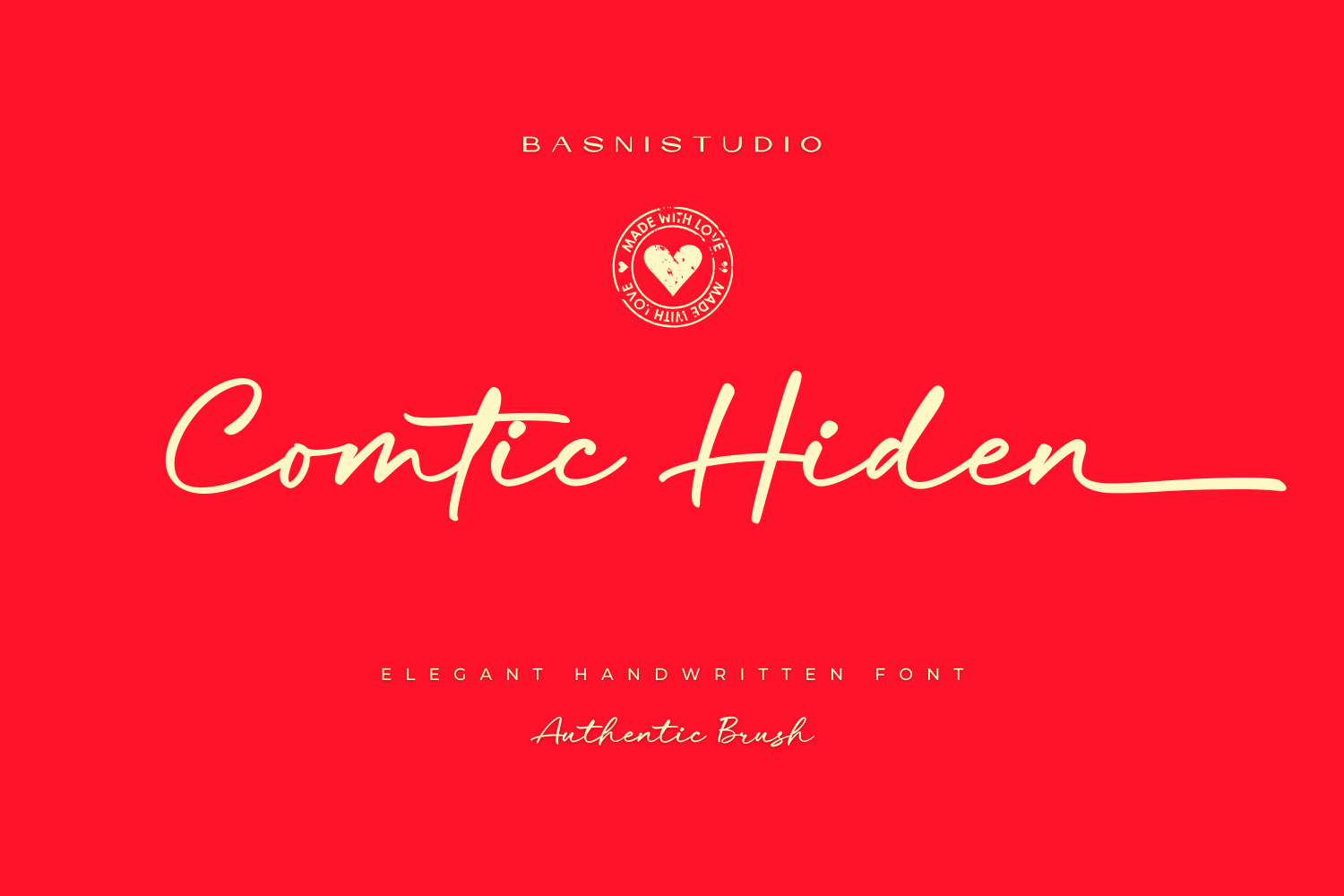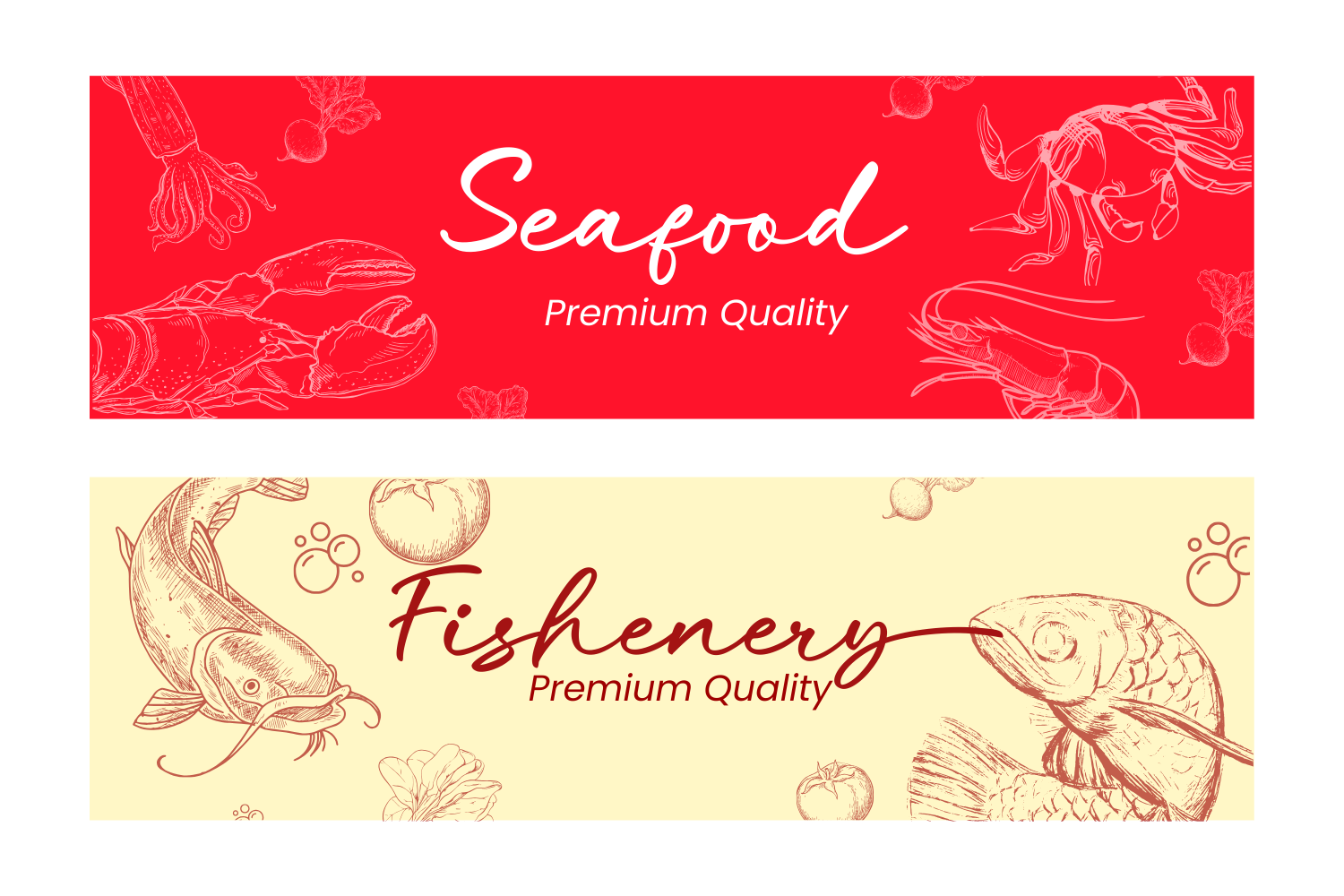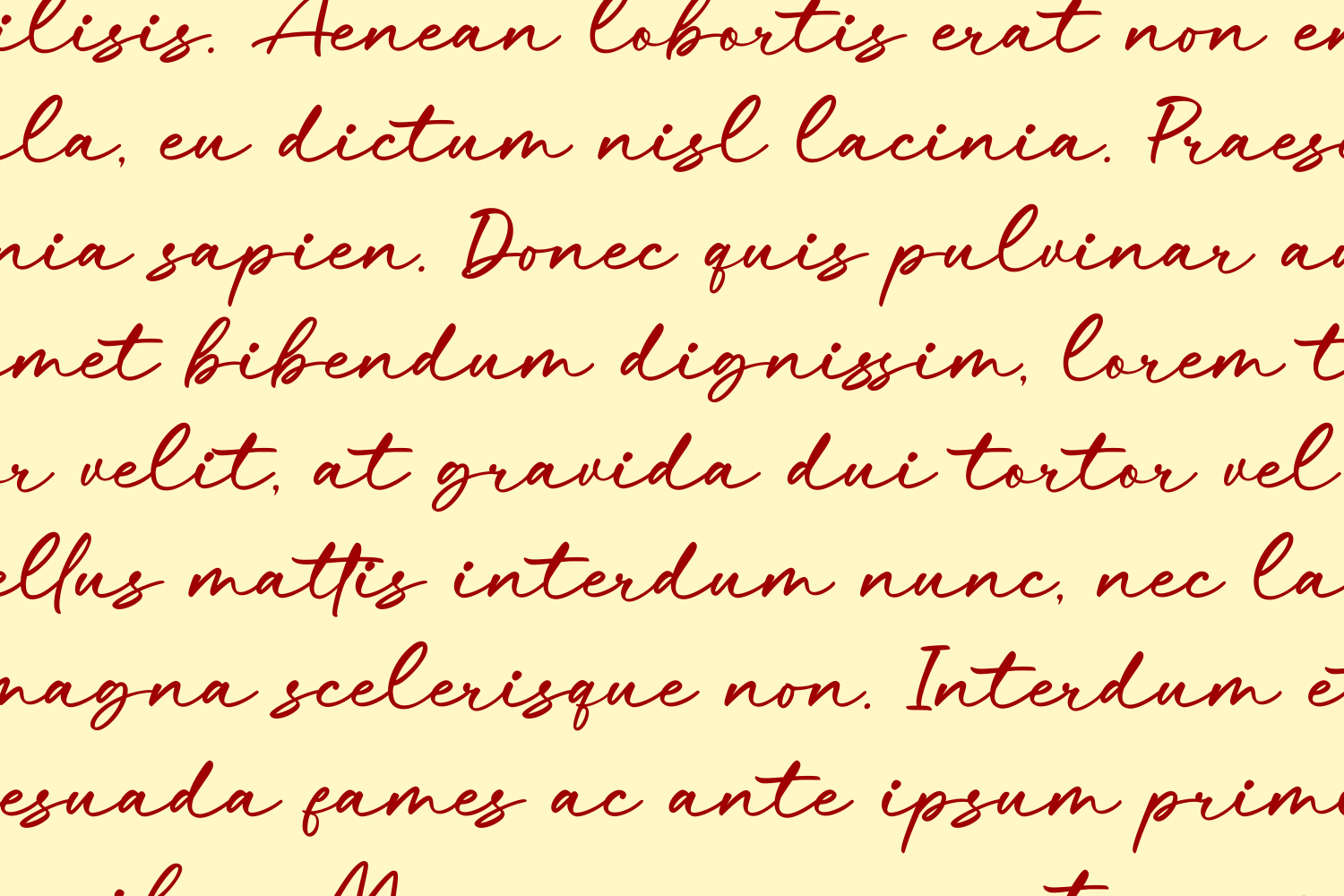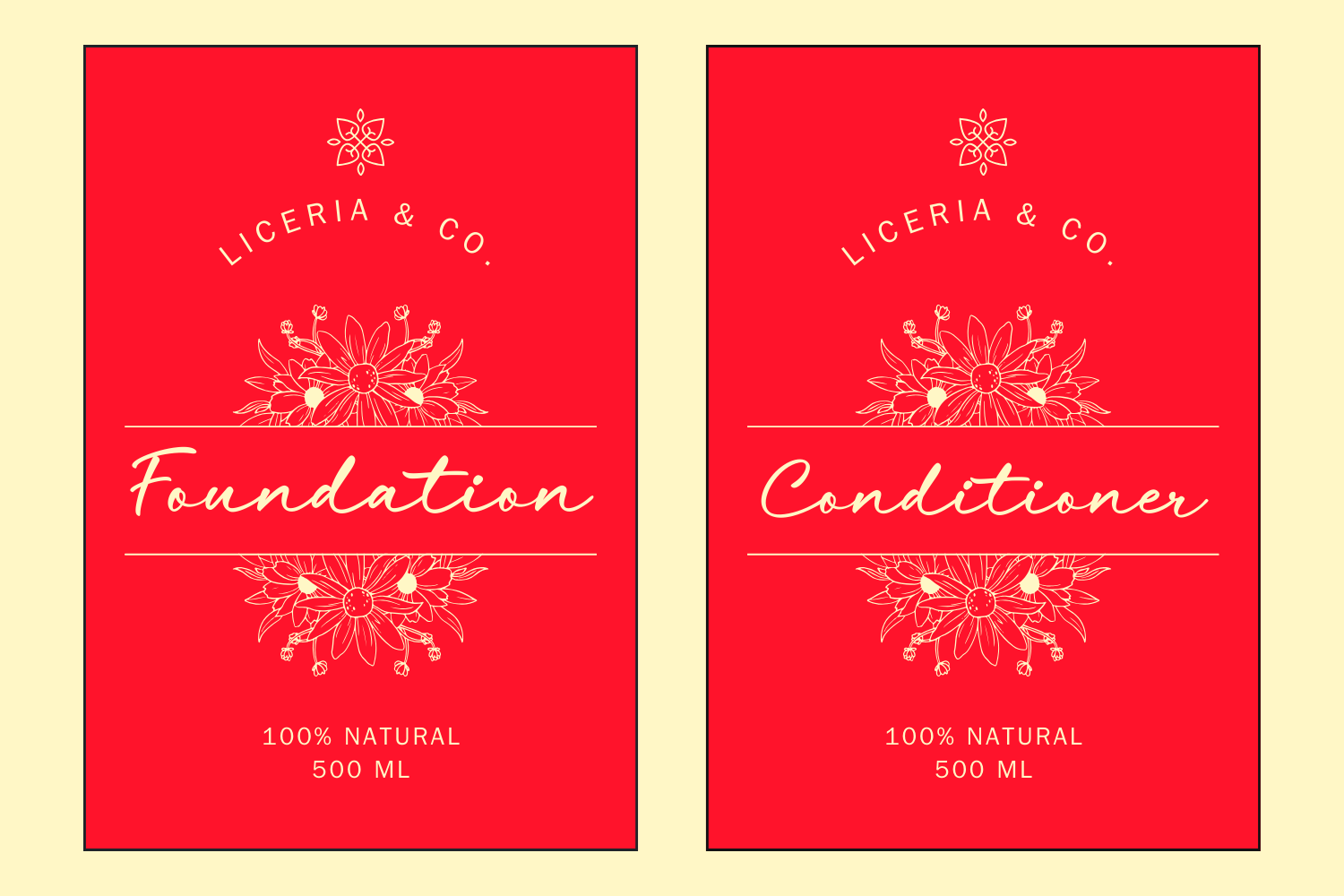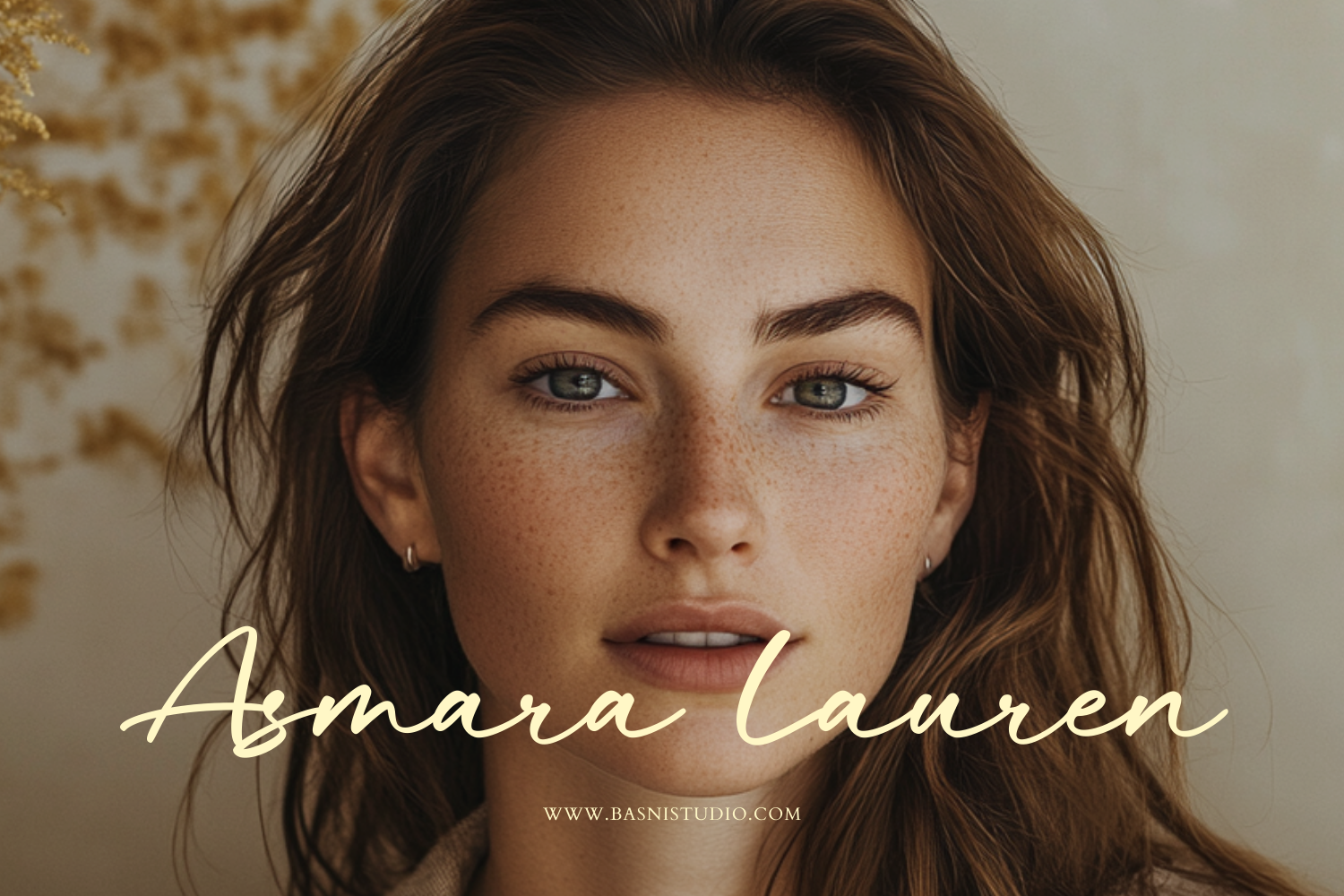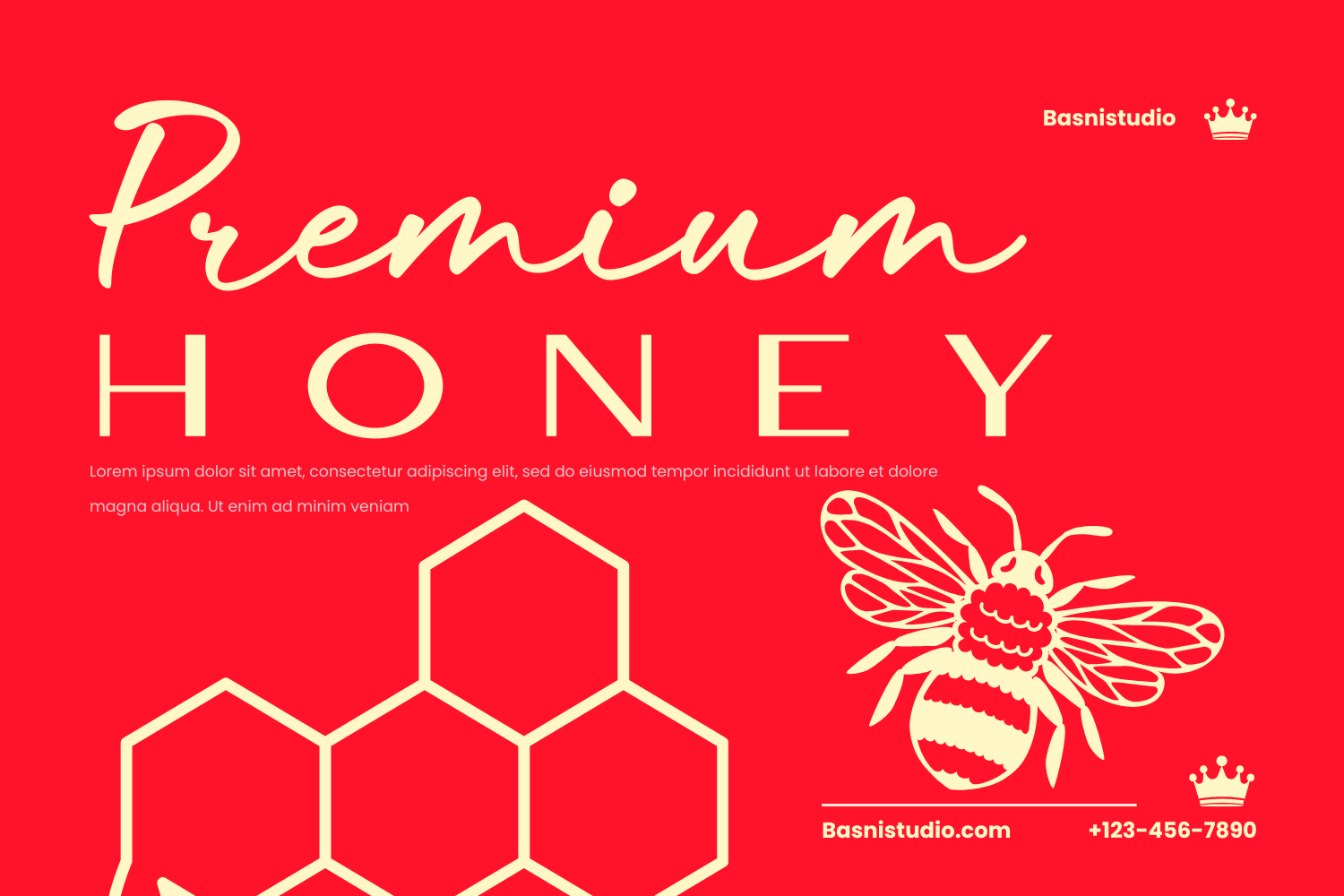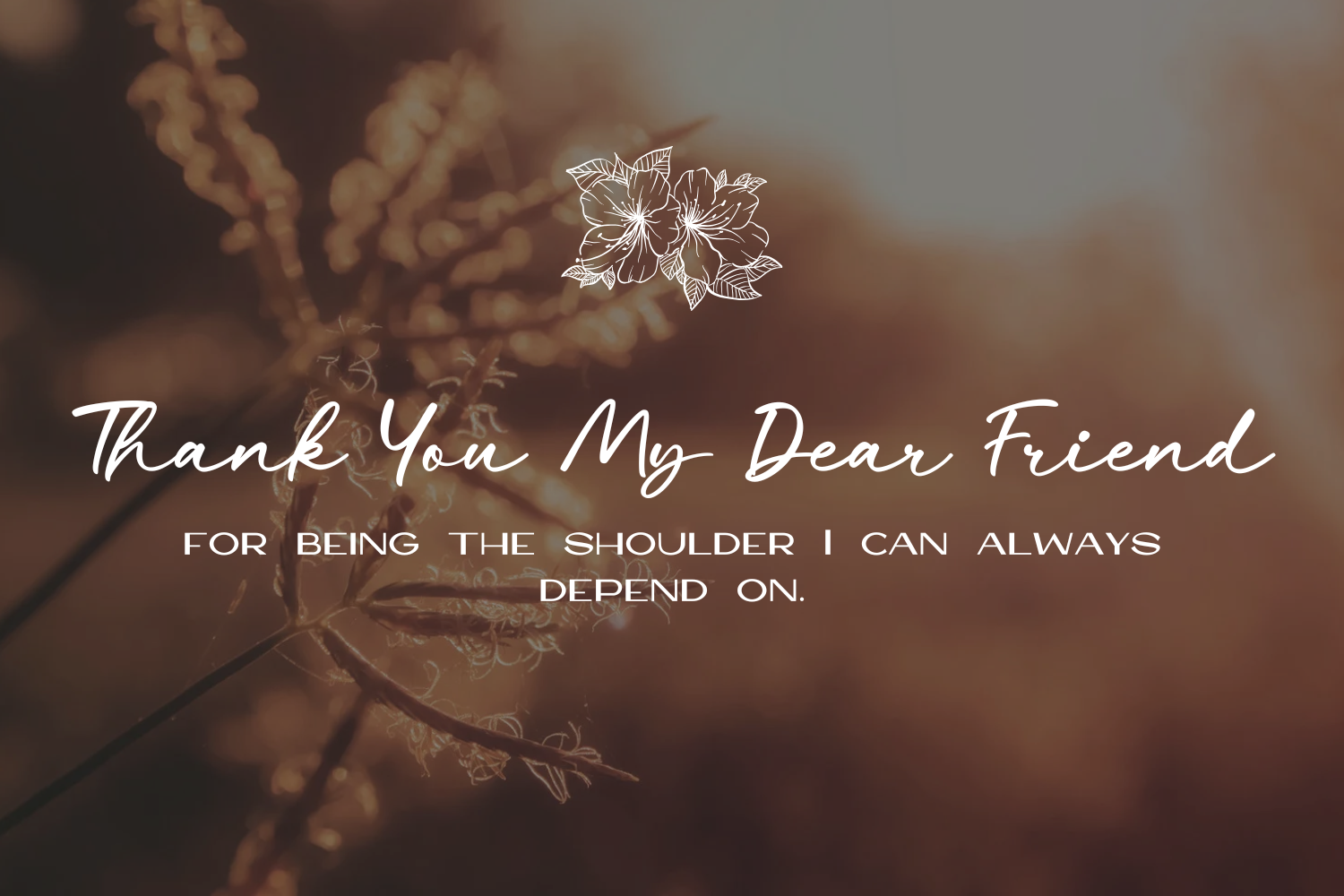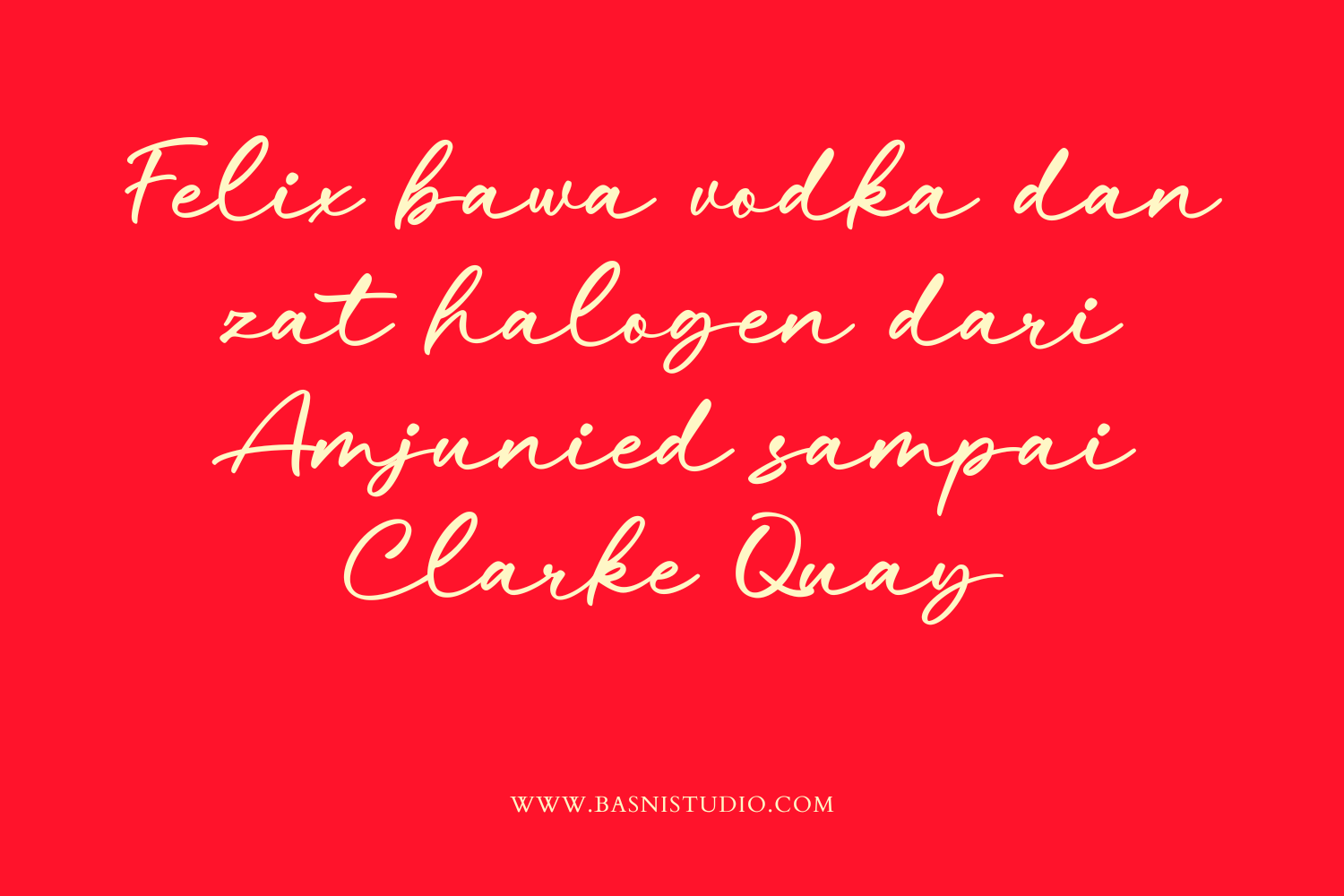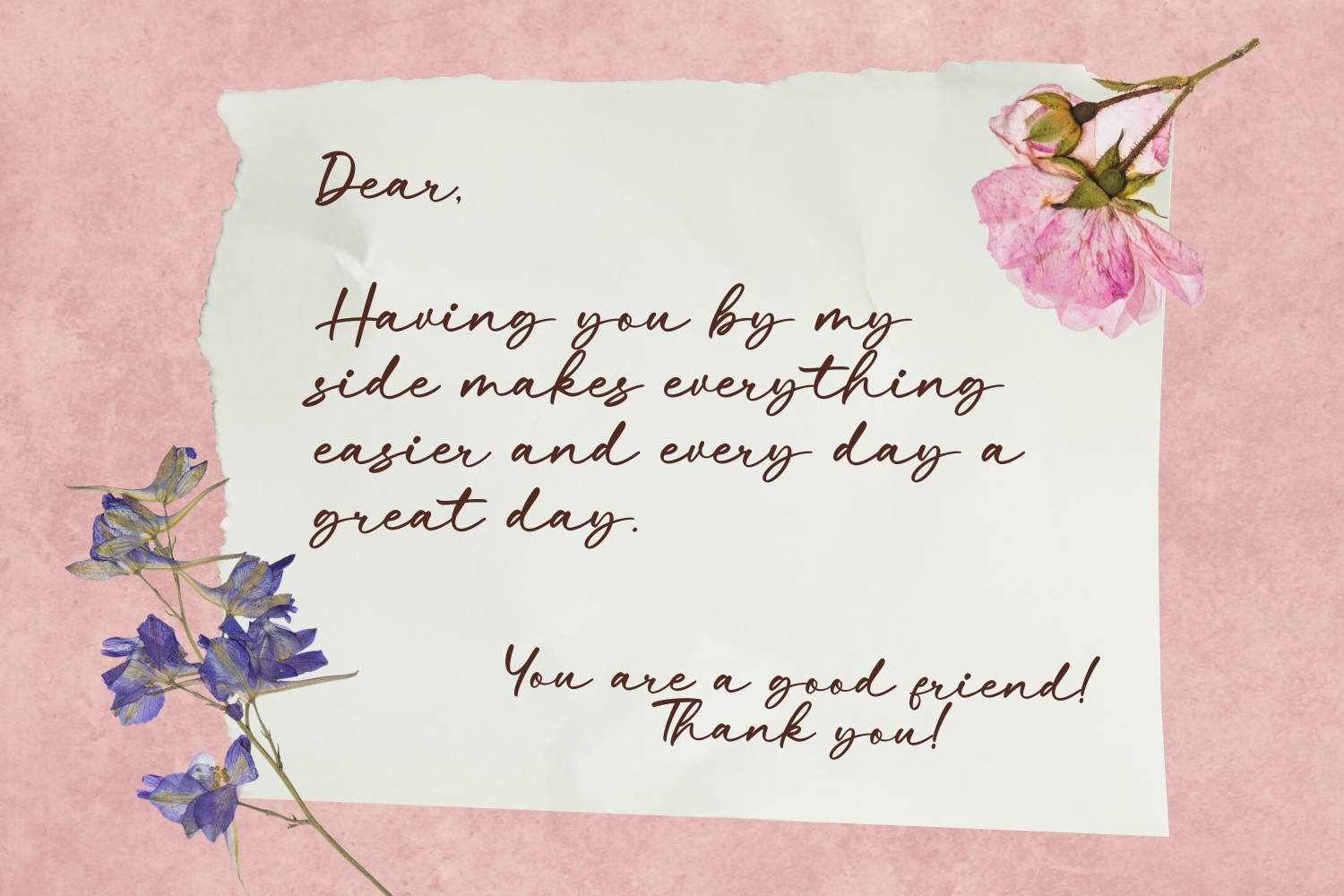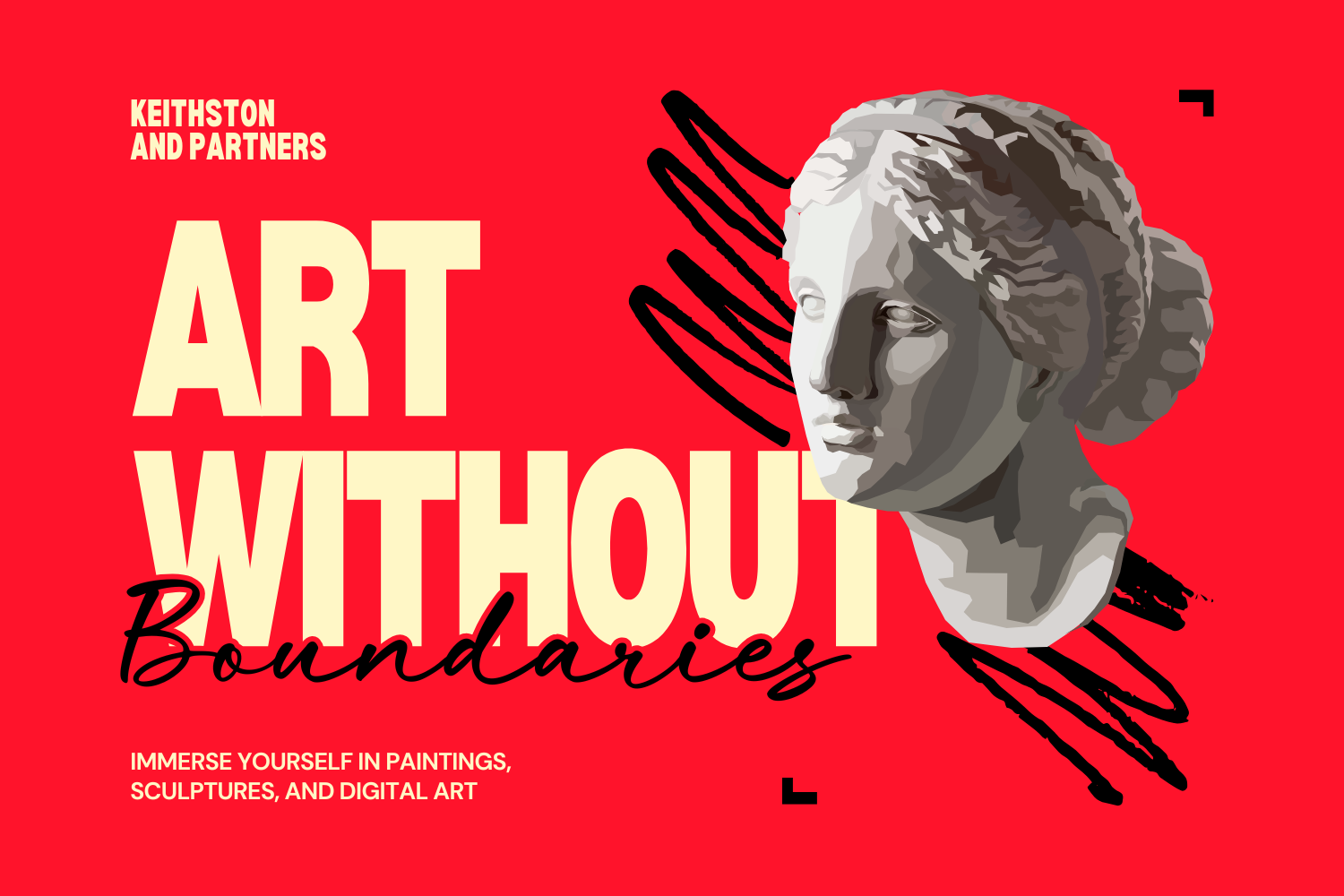
Comtic Hiden – Casual Handwritten Font for Branding
Handwritting Font Created with real pen strokes for a natural look and casual touch to everything from branding and social media to invitations and packaging.
Natural & Casual – Perfect for tagline, quotes, greeting cards, and more
Authentic Handwritten Feel – Created with real pen strokes for a natural look
Whether you’re building a powerful brand identity or crafting a standout design,
Comtic Hiden a Casual Handwritting Font Created with real pen strokes for a natural look gives you the creative edge you need.
- Uppercase & lowercase letters
- Swashes
- ligatures
- Numbers & punctuation